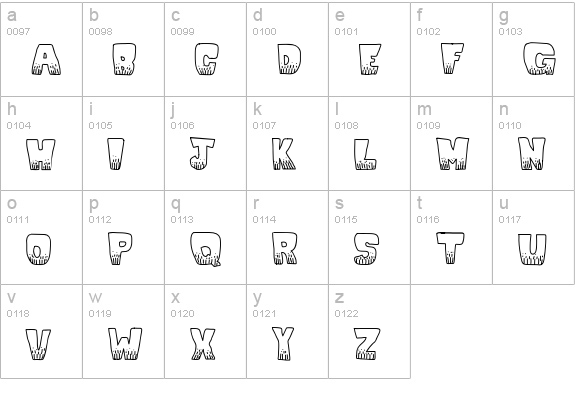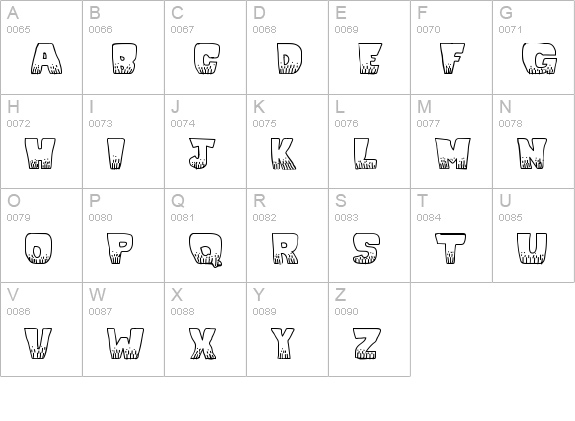
KaBlooie Font Details
Introducing KaBlooie font, a vibrant and explosive typeface that will add a burst of energy to any design project. With its bold and dynamic letterforms, KaBlooie is the perfect choice for those seeking to make a memorable impact. This font brings a playful yet powerful aesthetic, making it ideal for attention-grabbing headlines, eye-catching posters, and striking logos. But what makes KaBlooie even more exciting is that it is available for free! Yes, you read that right. This incredible font can be freely downloaded at FontsMarket.com, allowing designers and creatives of all levels to access its captivating charm without any cost involved. Designed with meticulous attention to detail, KaBlooie showcases a unique combination of organic shapes, explosive lines, and energetic strokes. It is a typeface that exudes a sense of fun and excitement, instantly capturing the viewer's attention and leaving a lasting impression. With its wide range of stylistic alternates, KaBlooie offers endless possibilities for customization. Experiment with different letter combinations or mix and match various variations to create a truly personalized typographic masterpiece. Whether you're designing a poster for a music festival, a comic book cover, or a branding project for a dynamic startup, KaBlooie will undoubtedly make your designs pop off the page. So why wait? Go ahead and unleash the explosive power of KaBlooie font in your next creative endeavor. Download it for free at FontsMarket.com and let your imagination run wild as you bring your designs to life with this captivating typeface.